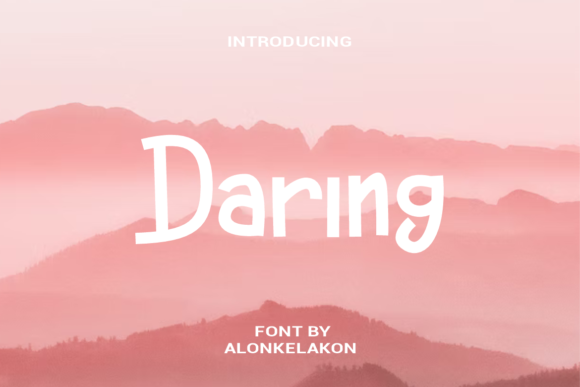
The Birth of a Bold Idea
Have you ever stared at a blank page, pencil in hand, and thought, “I want to make a statement”? That’s exactly where the magic of typography begins. As designers, we’re constantly seeking the perfect font to elevate our message and leave a lasting impression. For those moments when boldness is key, we turn to a trusted ally: the Daring Font.
This cool and confident display font is the ultimate go-to for any design project. Whether you’re crafting a business report, designing a magazine, or creating a poster, Daring Font is the perfect companion to help you convey your message with style and sophistication.
For designers, Daring Font is a valuable asset, offering the perfect blend of modernity and versatility to take your designs to the next level. With its bold and eye-catching features, this font is sure to make a statement and leave a lasting impression on your audience.
Daring Font Key Features
- Unique Characteristics: Daring Font features a unique blend of modern and vintage elements, with bold lines, geometric shapes, and subtle texture, making it perfect for adding a touch of sophistication to designs.
- Kerning and Ligatures: Daring Font includes advanced kerning and ligature tables, ensuring smooth text rendering and a professional look in any design application.
Daring Font Review
Overall, I think Daring Font has a certain charm to it ✨. The unique combination of serif and sans-serif elements creates a distinctive look that can add some personality to your design. The font is well-suited for headings and titles, as it’s bold and eye-catching. It’s also relatively easy to read, even at smaller font sizes.
One of the things I appreciate about Daring Font is its versatility ✨. It can be used in a variety of contexts, from modern websites to vintage-inspired designs. The font also comes in a range of weights and styles, which can be helpful if you want to create a cohesive look across multiple elements.
- Unique blend of serif and sans-serif elements
- Bold and eye-catching for headings and titles
- Relatively easy to read at smaller font sizes
- Highly versatile and suitable for various design contexts
- May be difficult to read at very small font sizes
- Can be overwhelming if used too extensively
- Not ideal for large blocks of body text
Overall, I think Daring Font is a solid choice for designers who want to add some personality to their work ✨. While it has some limitations, its unique look and versatility make it a great option for the right project.
Getting the Most Out of Daring Font
To get the most out of Daring Font, try the following tips:
– Use it for headings and titles to add emphasis and visual interest.
– Pair it with a clean and simple font for body text.
– Experiment with different font sizes and styles to create a unique look.
Daring Font is commonly used for:
– Headings and titles in marketing materials and advertisements.
– Quotes and captions in social media posts and blog articles.
– Menu and navigation labels in websites and apps.